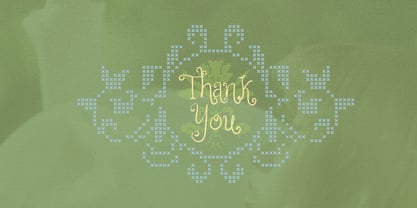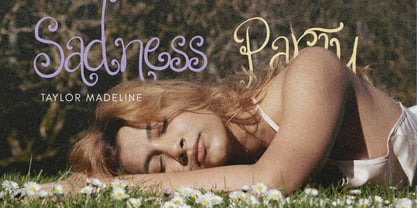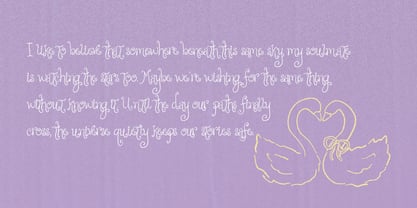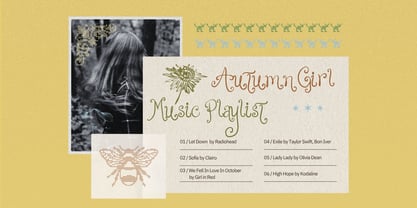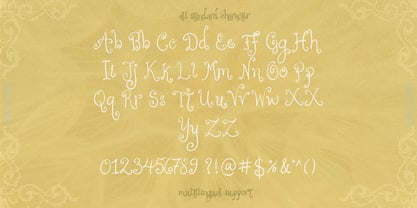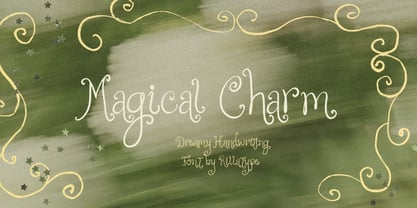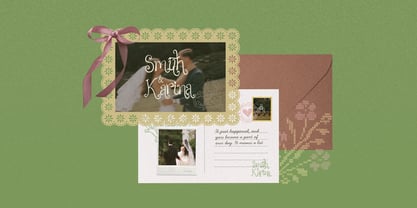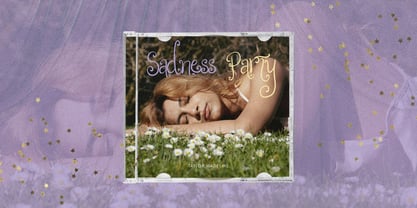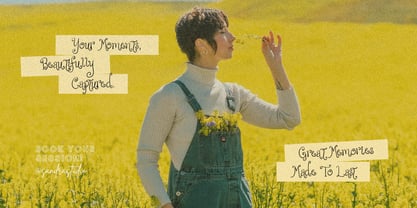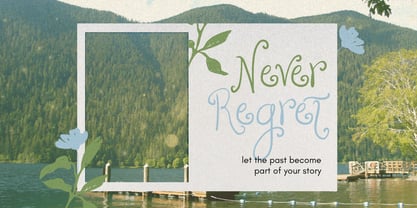
RT Magical Charm
par Rillatype
La famille de polices RT Magical Charm a été conçue par Gustian Agung Asprilla et publiée par Rillatype. RT Magical Charm contient 1 styles. En savoir plus sur cette famille
Magical Charm is a dreamy handwritten font filled with soft, whimsical character and a touch of nostalgic charm. Its naturally flowing letterforms feel personal and expressive, as if they were written in a treasured journal, a handwritten note, or a postcard from somewhere far away.
With its delicate imperfections and playful rhythm, Magical Charm brings a warm, storybook-like feeling to every word. It works beautifully for romantic branding, book covers, poetry, quotes, invitations, packaging, social media graphics, editorial layouts, and any design that calls for something gentle, imaginative, and heartfelt.
Concepteurs: Gustian Agung Asprilla
Fonderie: Rillatype